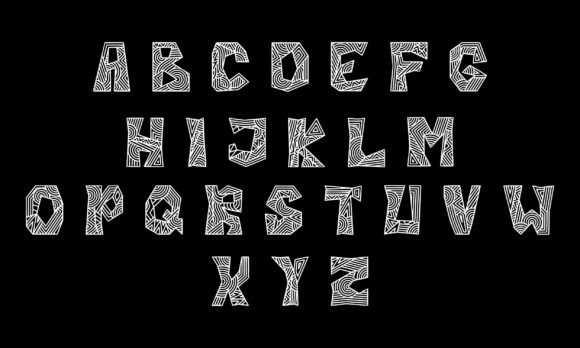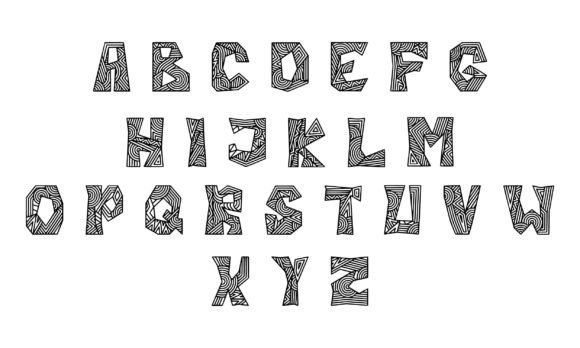
Introduction to Saine Font
Saine is a fun and unique all-caps decorative font featuring lovely, abstract motifs.
This creative font is perfect for all your crafty ideas and will instantly add an artistic accent to any creation .
Key Features of Saine Font
Why Choose Saine Font?